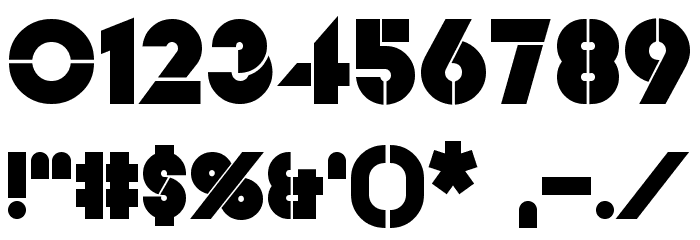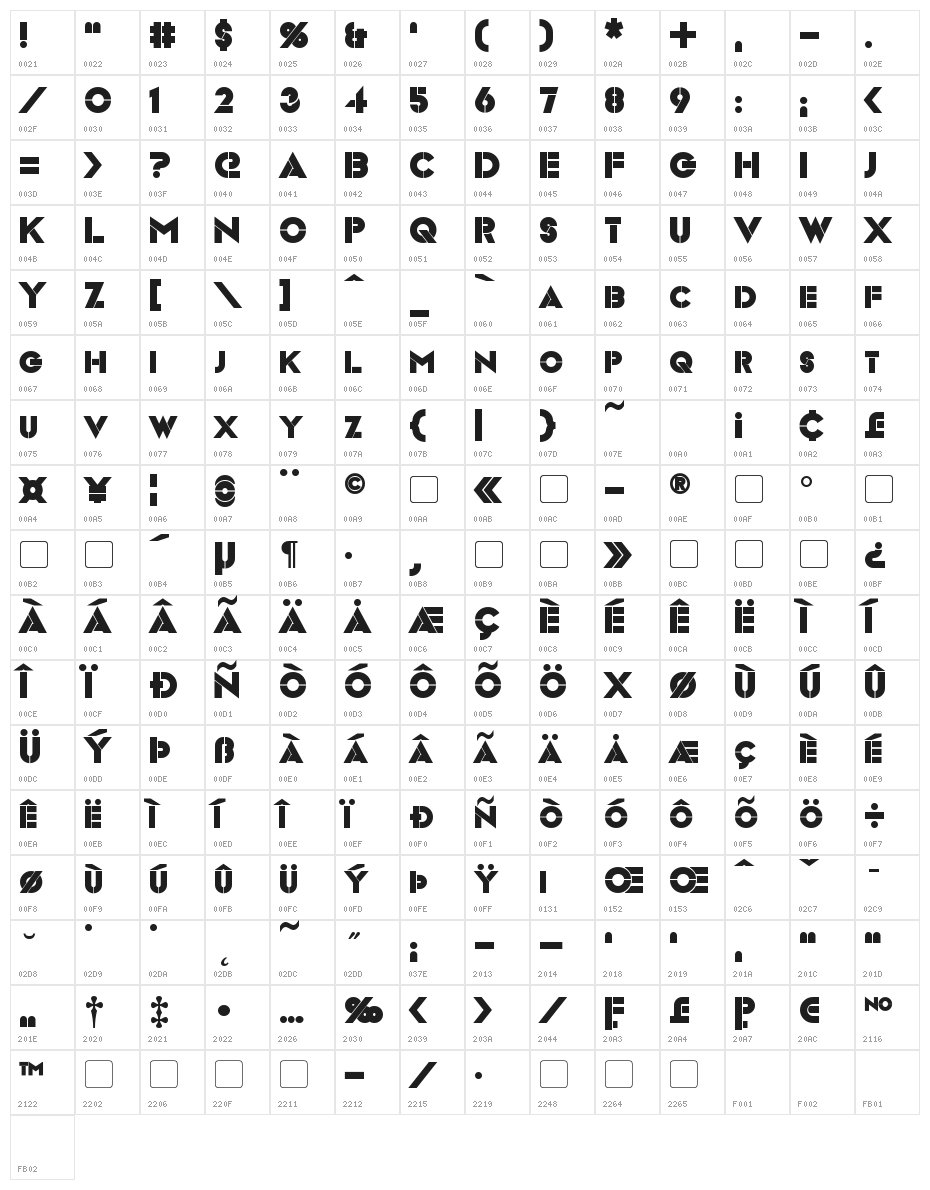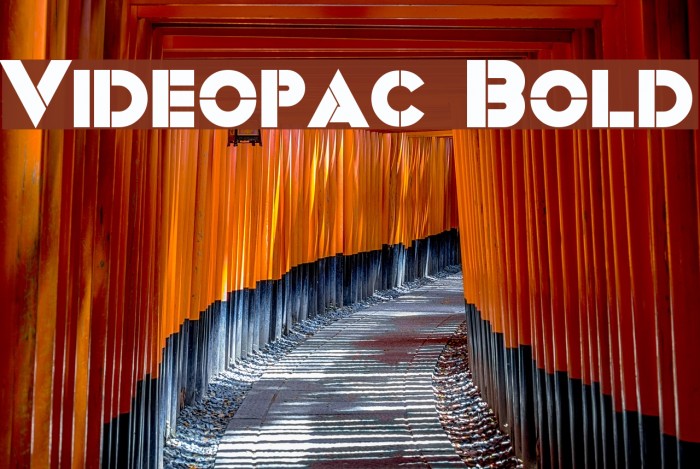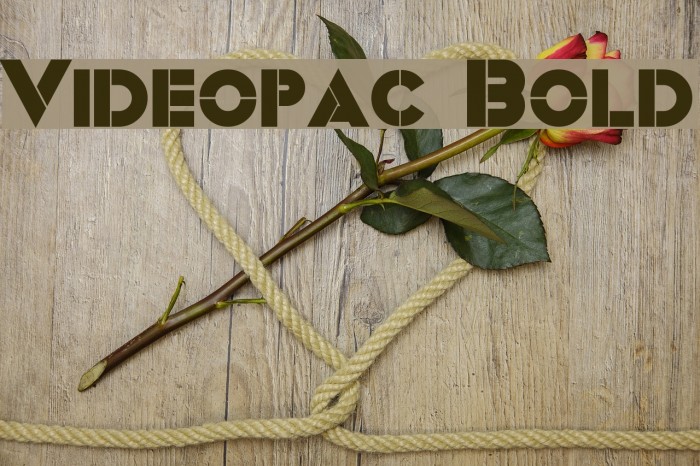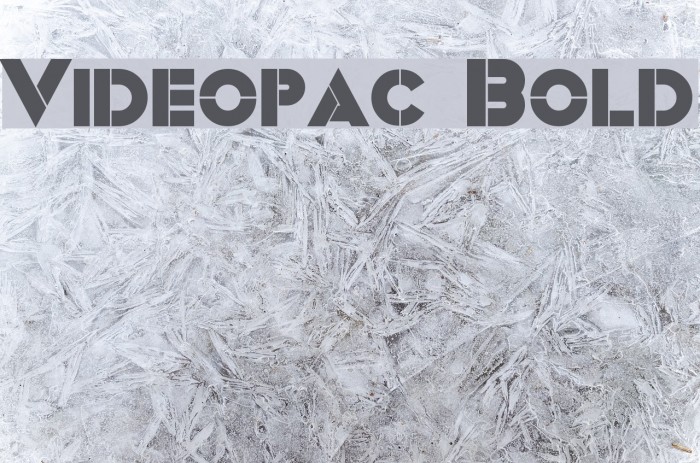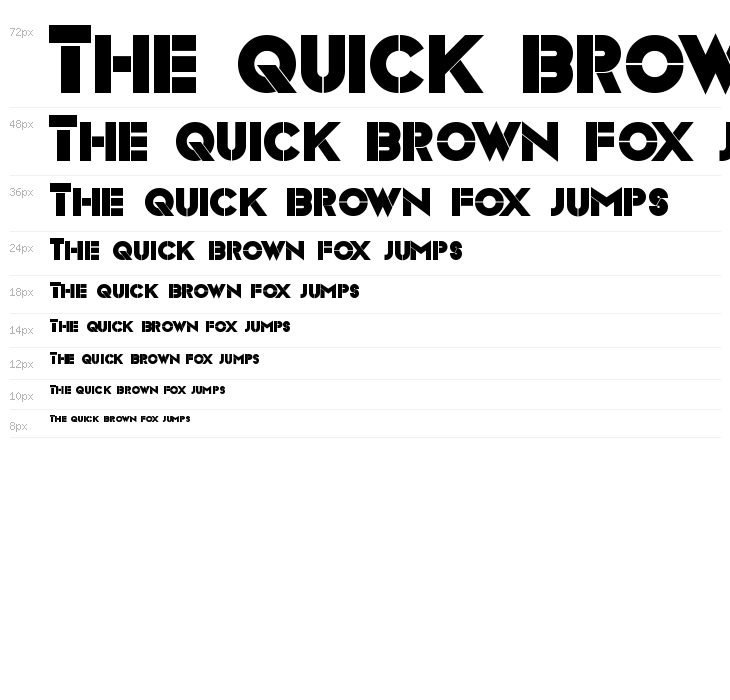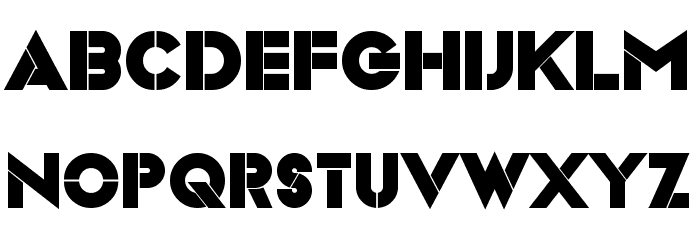
Videopac Bold Font
Videopac Bold Description
This bold, geometric font features a striking and modern design with strong, angular lines and a distinct, futuristic appearance. The characters are constructed with a combination of sharp edges and circular cutouts, creating a dynamic visual contrast. The uppercase and lowercase letters maintain a consistent style, while the numerals and special characters complement the overall aesthetic. The font's bold weight and unique design make it highly suitable for attention-grabbing headlines and display purposes. Its distinct style is reminiscent of retro-futuristic themes, making it ideal for projects that aim to evoke a sense of nostalgia while maintaining a contemporary edge.
| Overall Style | Modern, Retro-Futuristic |
| Proposed Projects | Ideal for video game titles, sci-fi movie posters, tech branding, and retro-themed designs. |